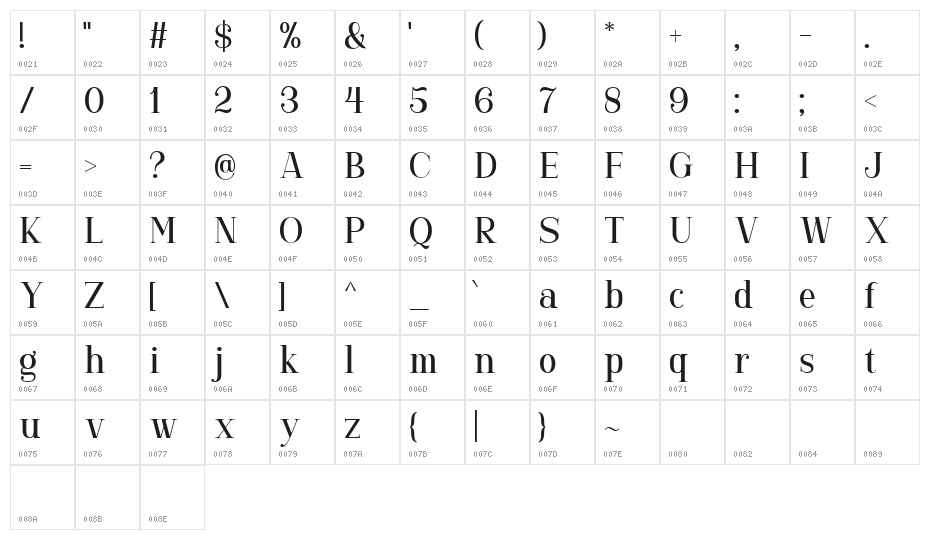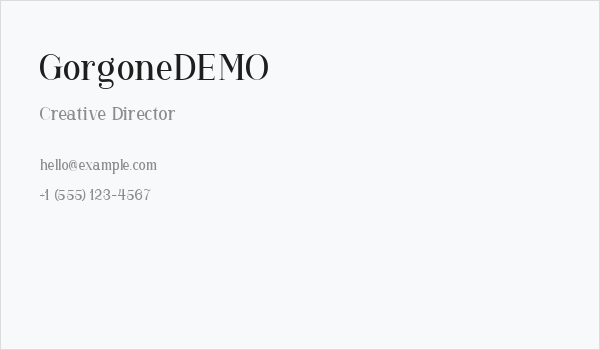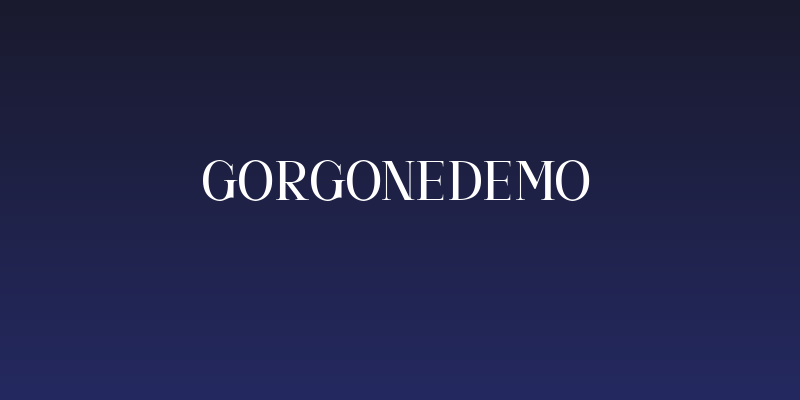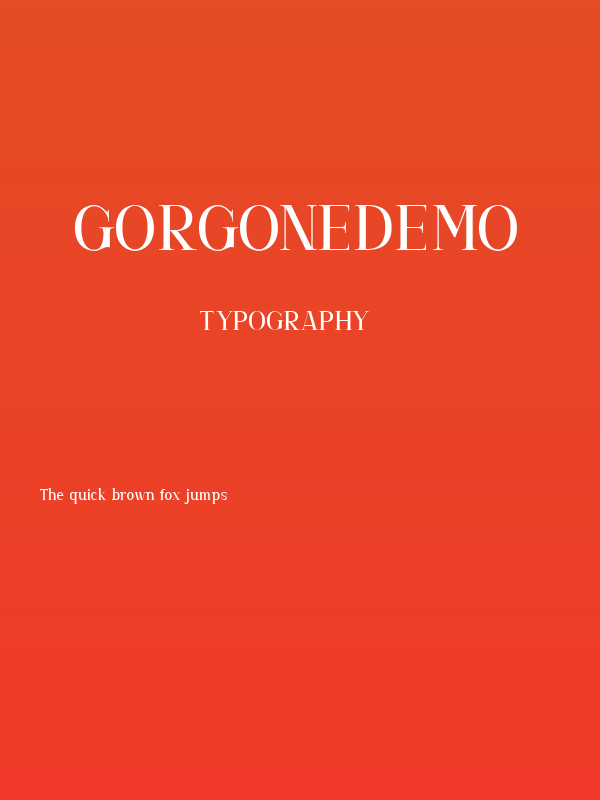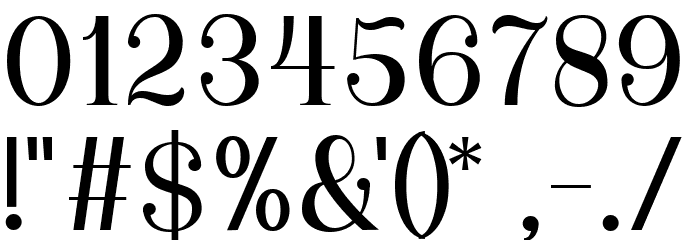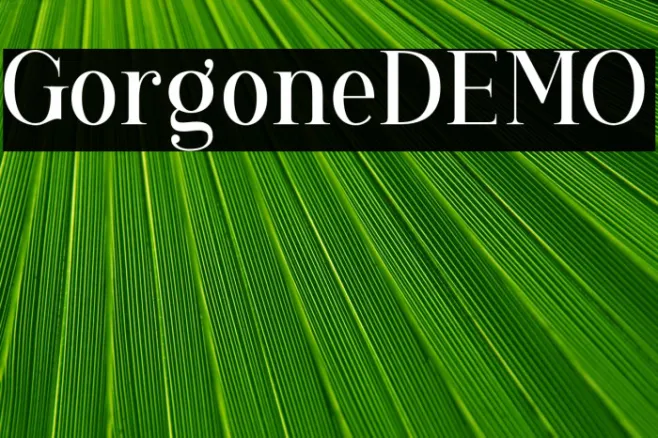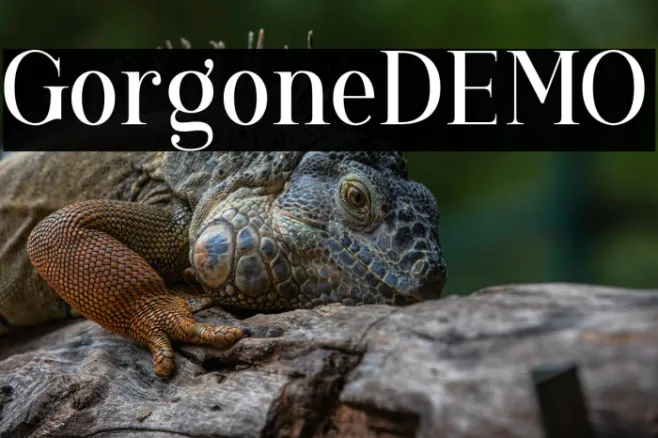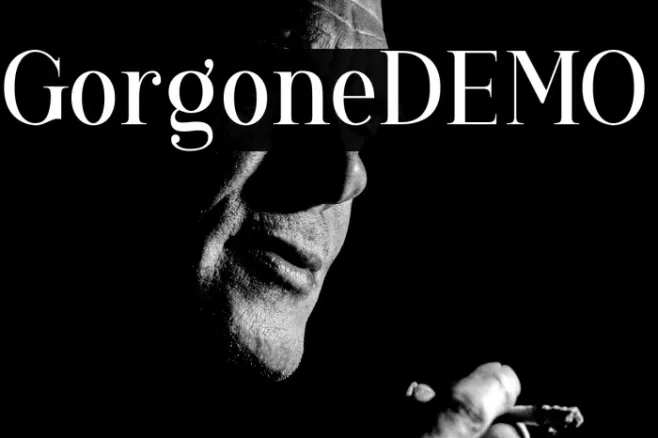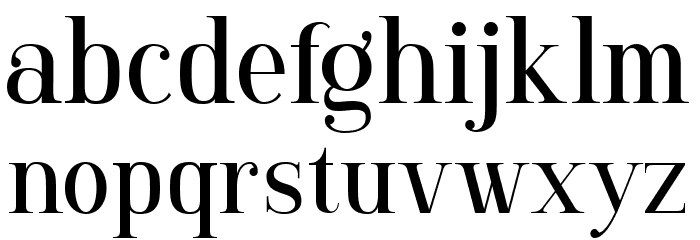
GorgoneDEMO Font
GorgoneDEMO Description
This font features a classic serif design with elegant and refined strokes. The uppercase letters are tall and commanding, while the lowercase letters maintain a balanced and harmonious appearance. The numerals are distinct and easy to read, with a traditional style that complements the overall aesthetic. Special characters are thoughtfully designed to match the font's sophisticated look. The font's high contrast between thick and thin strokes adds to its timeless appeal, making it suitable for a variety of formal and professional applications.
| Proposed Projects | Ideal for book covers, formal invitations, branding, and editorial design. |